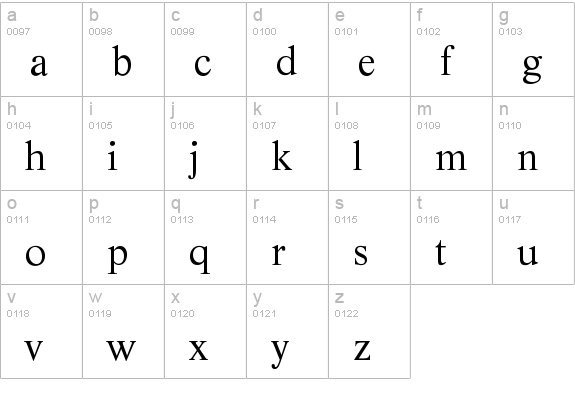
Life Font Details
Introducing Life font, a versatile and modern typeface that brings a touch of elegance to any design project. With its clean lines and stylish curves, Life font is perfect for creating eye-catching logos, branding materials, posters, and more. The sleek and sophisticated look of this font makes it a popular choice for designers looking to add a touch of class to their work. What's even better is that Life font is available for free download at FontsMarket.com. Yes, you read that right - this high-quality font can be yours at no cost, making it accessible to designers of all levels. So why wait? Elevate your designs with the timeless beauty of Life font today.